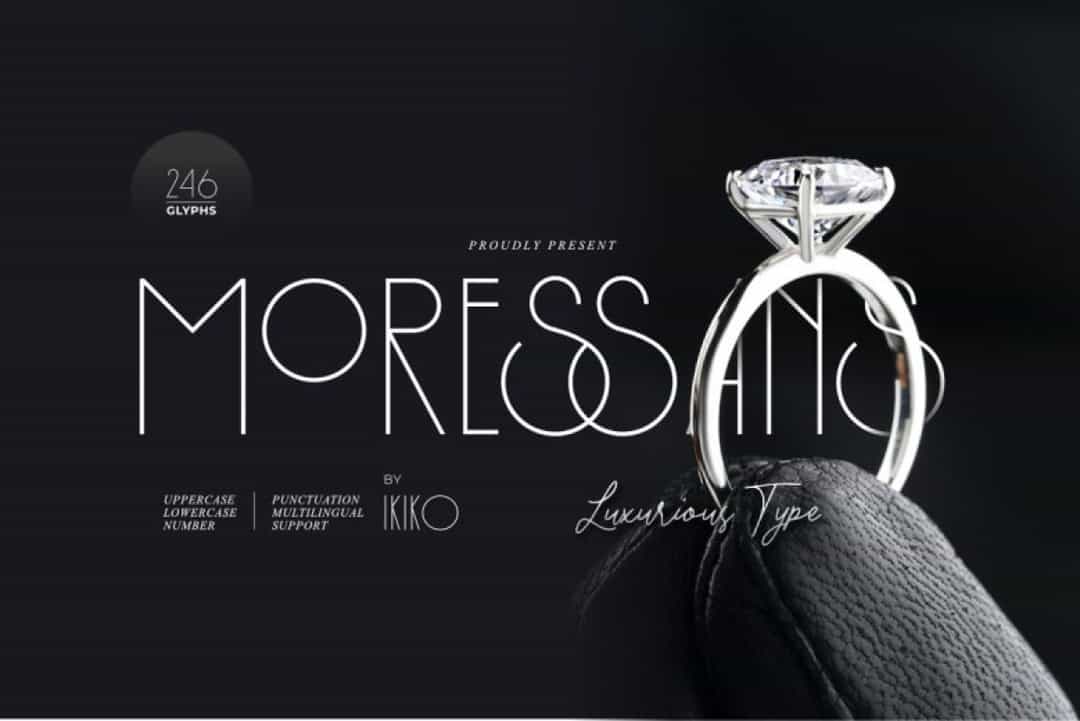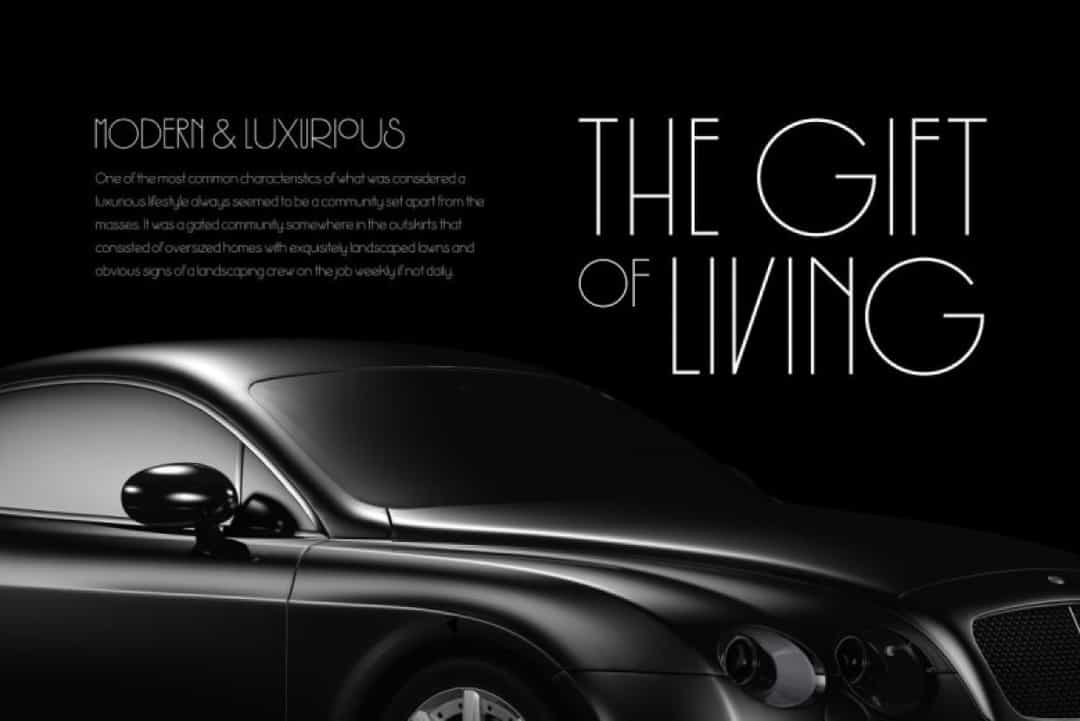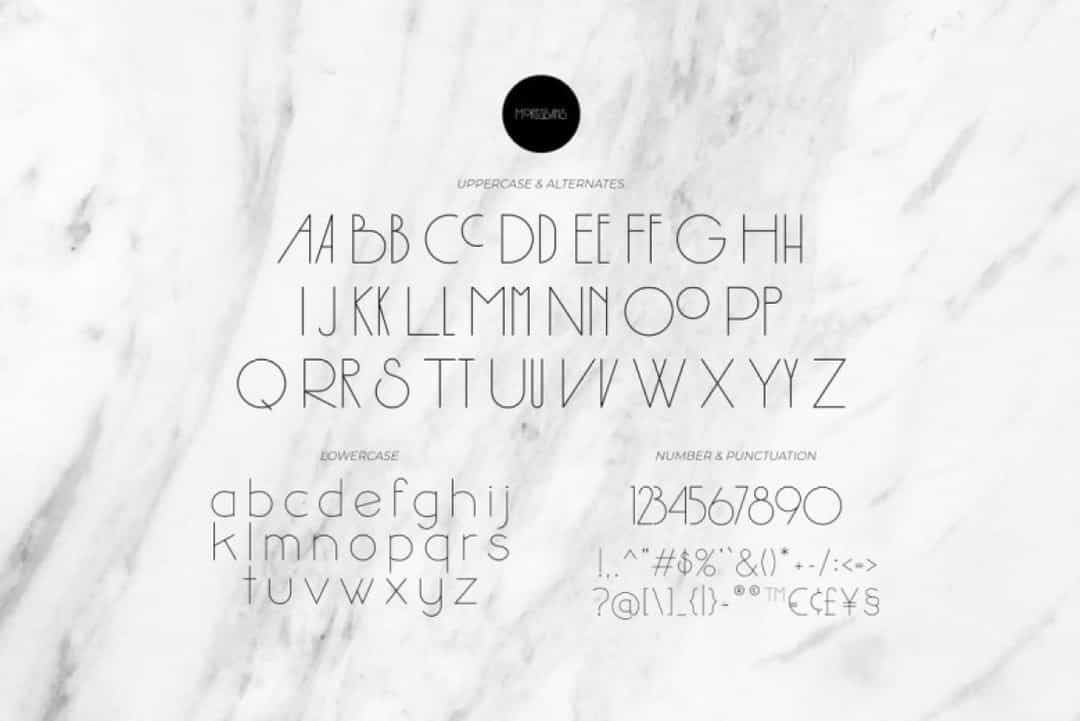
Moressans font is an elegant sans serif typeface featuring an elongated and thin shape, featuring small letters with elegant lines. This typeface creates a sense of class while remaining fashionable; ideal for logos or branding purposes as well as magazine layout cosmetics product packaging quotes and even text overlay on images.